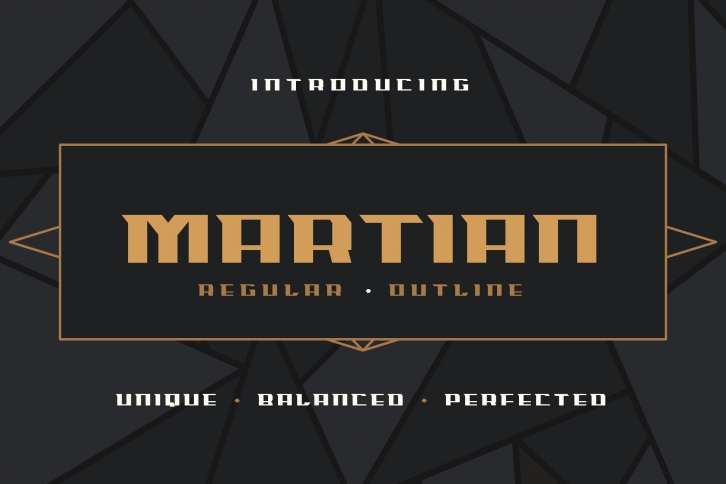
Martian Sans (Regular-Outline)
- Martian Sans is a carefully crafted sans serif font family.
- It comes with four different styles: REGULAR + OUTLINE
- Multilingual: It has LATIN letters.
Martian Sans created for poster, web design, branding, illustrations, badges and some other works.